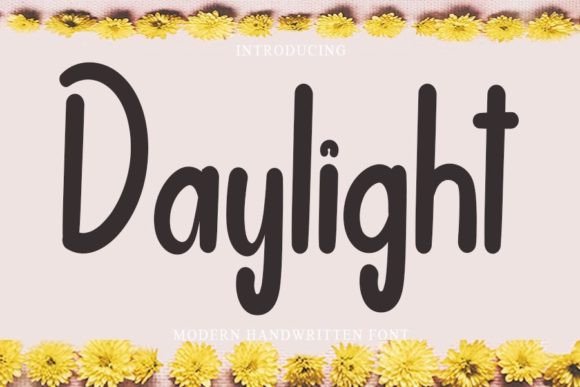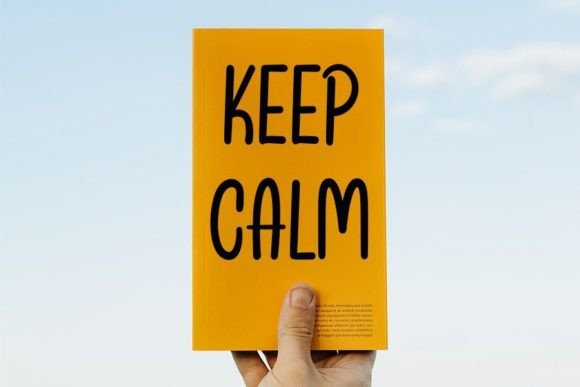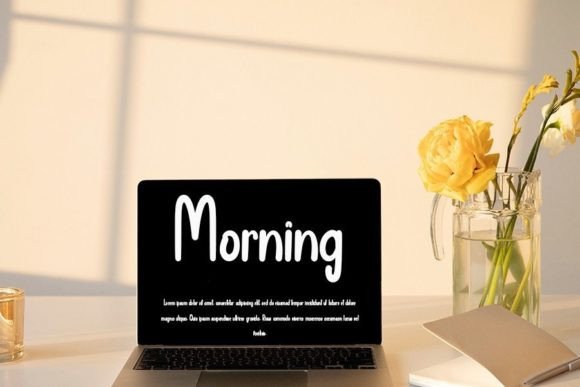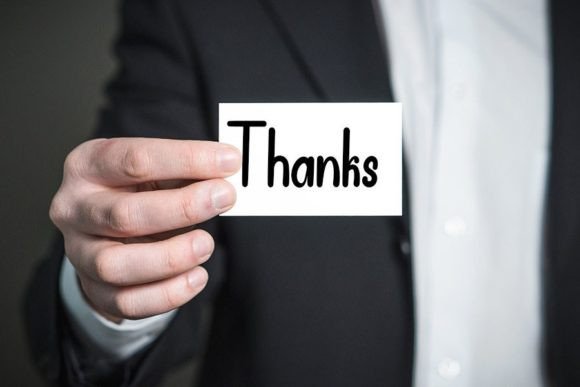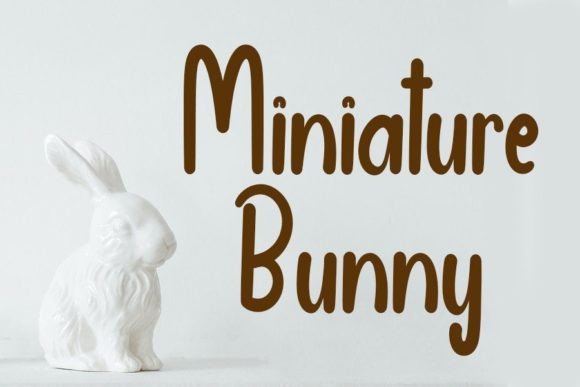
About Daylight Font
“Daylight” is more than just a font; it’s a neat and beautiful handwritten typeface characterized by an elegant touch, making it the perfect choice for your favorite projects. With its distinct and timeless style, “Daylight” becomes a valuable asset, allowing you to create spectacular designs that stand out with sophistication and charm.
The neat and beautiful qualities of “Daylight” make it versatile for a variety of projects. Whether you’re working on invitations, stationery, social media posts, or any other creative endeavor, this font adds a touch of elegance and uniqueness.
The handwritten nature of “Daylight” contributes to its distinct and timeless style. It brings a sense of authenticity and warmth to your text, making it more engaging and relatable to your audience.
Imagine “Daylight” gracing your designs, creating a visual experience that is both neat and delightful. Its elegant touch elevates the overall aesthetics of your projects, making them stand out with a touch of sophistication.
For any design that requires a refined and charming vibe, “Daylight” is the perfect choice. Its timeless style ensures that it remains a relevant and appealing font for a wide range of creative applications.
In essence, “Daylight” is more than just a font; it’s a design companion that adds neatness, beauty, and an elegant touch to your projects. Let “Daylight” be the typeface that brings a sense of sophistication and timelessness to your spectacular designs.